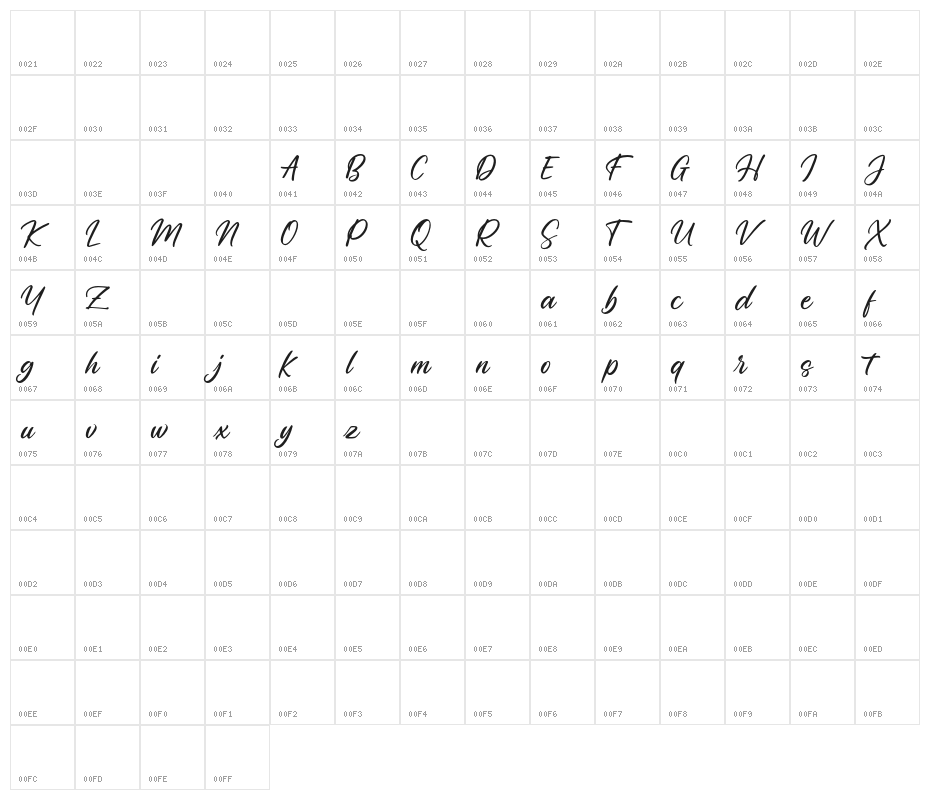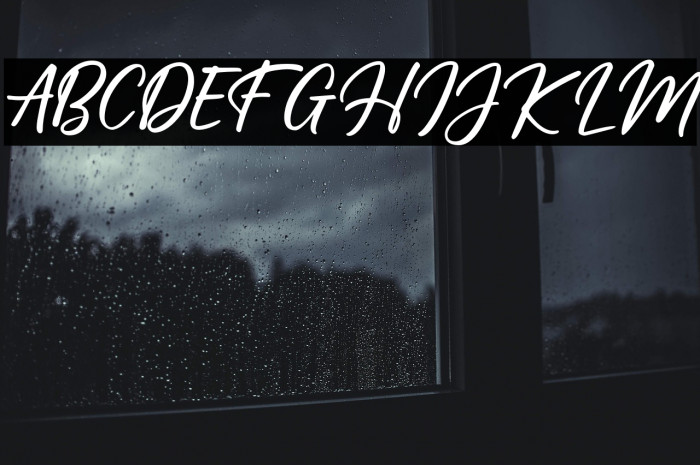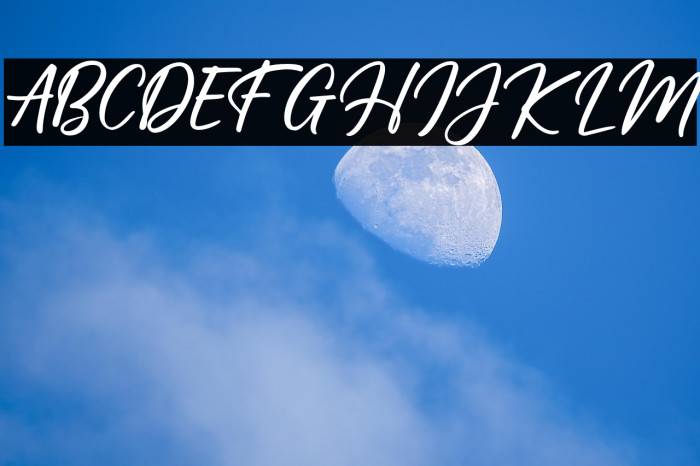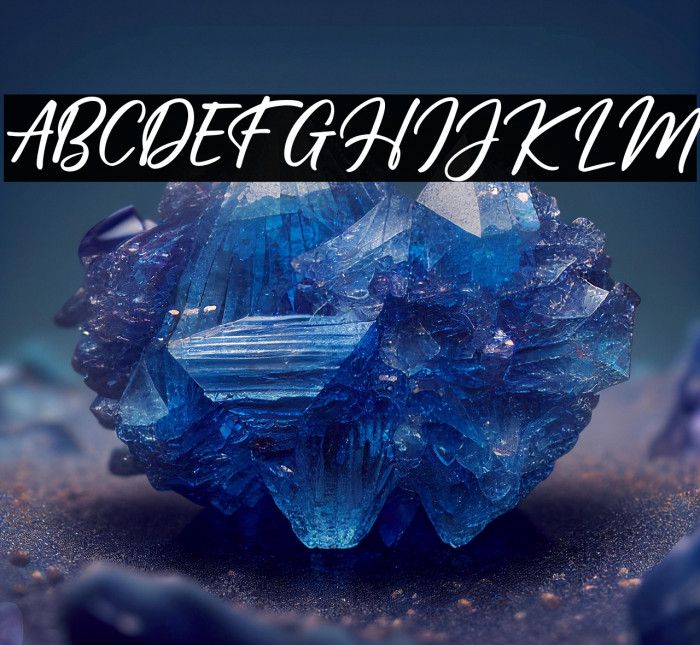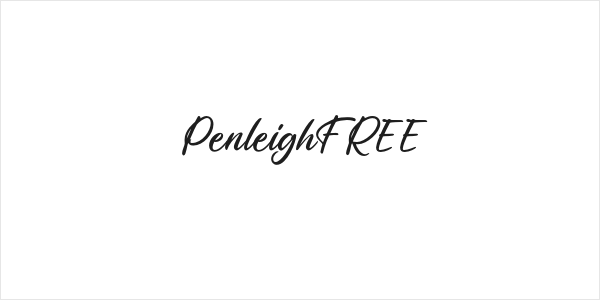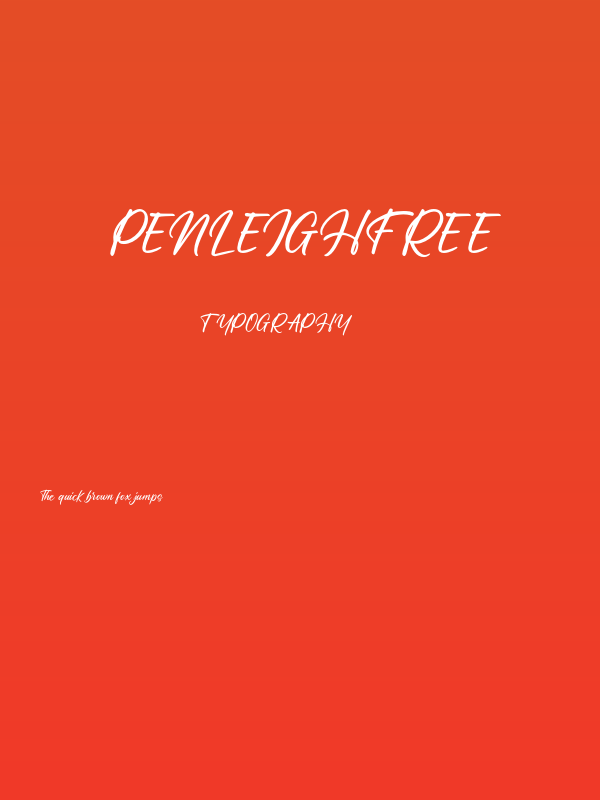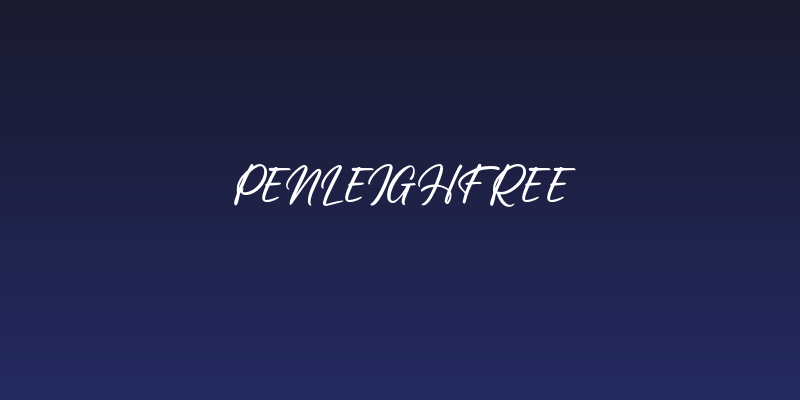
PenleighFREE Font
PenleighFREE Description
This font features a flowing, cursive style with elegant, sweeping strokes that give it a handwritten appearance. The uppercase letters are bold and slightly slanted, while the lowercase letters maintain a consistent flow, enhancing readability. The font exhibits a medium contrast between thick and thin strokes, adding a dynamic and lively feel. The characters are closely spaced, creating a cohesive and connected look. This font is ideal for projects that require a personal touch, such as invitations, greeting cards, or branding materials that aim to convey elegance and sophistication.
| Overall Style | Elegant, Handwritten |
| Proposed Projects | Ideal for wedding invitations, greeting cards, personal branding, and elegant packaging. |